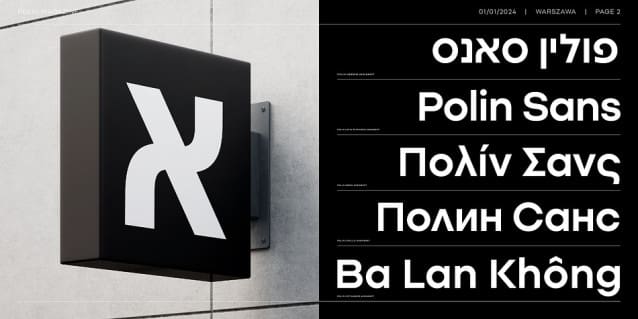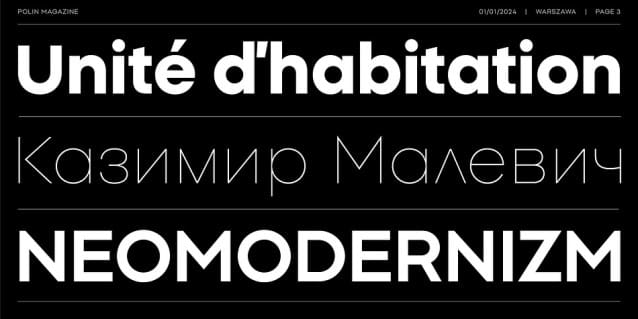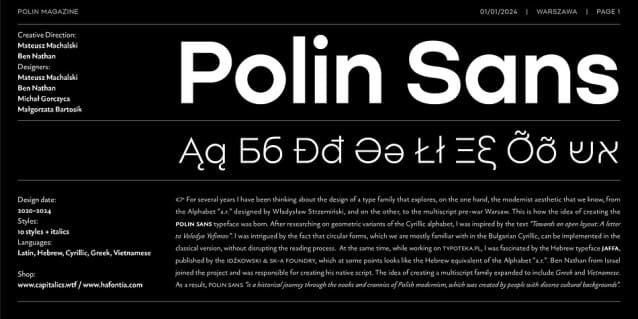
Polin Sans Font Family
Polin Sans Font Family, is a sans serif  stunning when combined or separately. This sans serif font style is legible and stunningly designed.  For several years I have been thinking about the design of a type family that explores, on the one hand, the modernist aesthetic that we know, from the Alphabet “a.r.” designed by Władysław Strzemiński, and on the other, to the multiscript pre-war Warsaw.
This is how the idea of creating the Polin Sans typeface was born. After researching on geometric variants of the Cyrillic alphabet, I was inspired by the text “Towards an open layout: A letter to Volodya Yefimov”. I was intrigued by the fact that circular forms, which we are mostly familiar with in the Bulgarian Cyrillic, can be implemented in the classical version, without disrupting the reading process. At the same time, while working on typoteka.pl, I was fascinated by the Hebrew typeface jaffa, published by the Idźkowski & Sk-a foundry, which at some points looks like the Hebrew equivalent of the Alphabet “a.r.”. Ben Nathan from Israel joined the project and was responsible for creating his native script.
The idea of creating a multiscript family expanded to include Greek and Vietnamese. As a result, Polin Sans is a historical journey through the nooks and crannies of Polish modernism, which was created by people with diverse cultural backgrounds. The Polin Sans family was designed by Mateusz Machalski and Ben Nathan with the support of Michał Gorczyca and Małgorzata Bartosik.